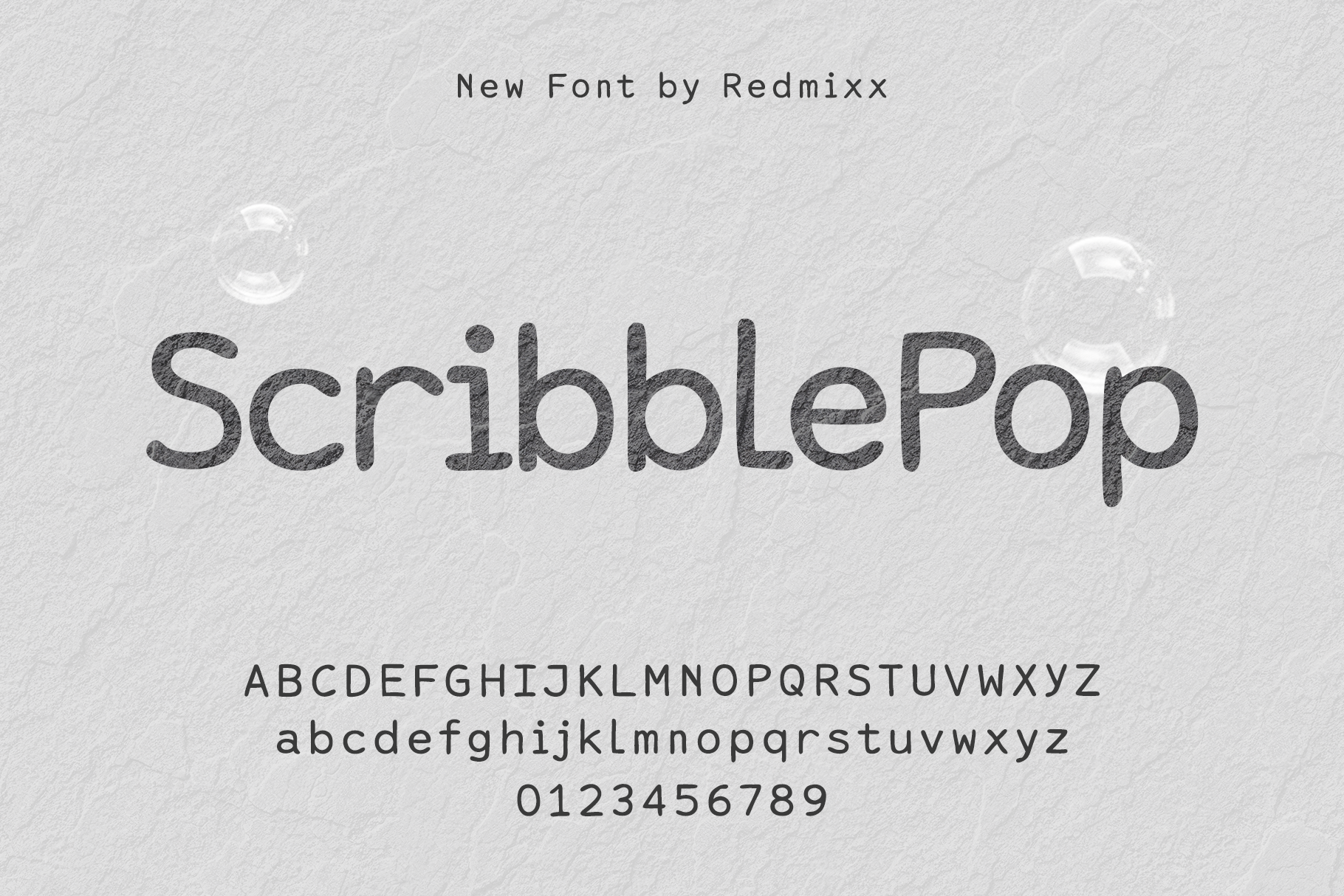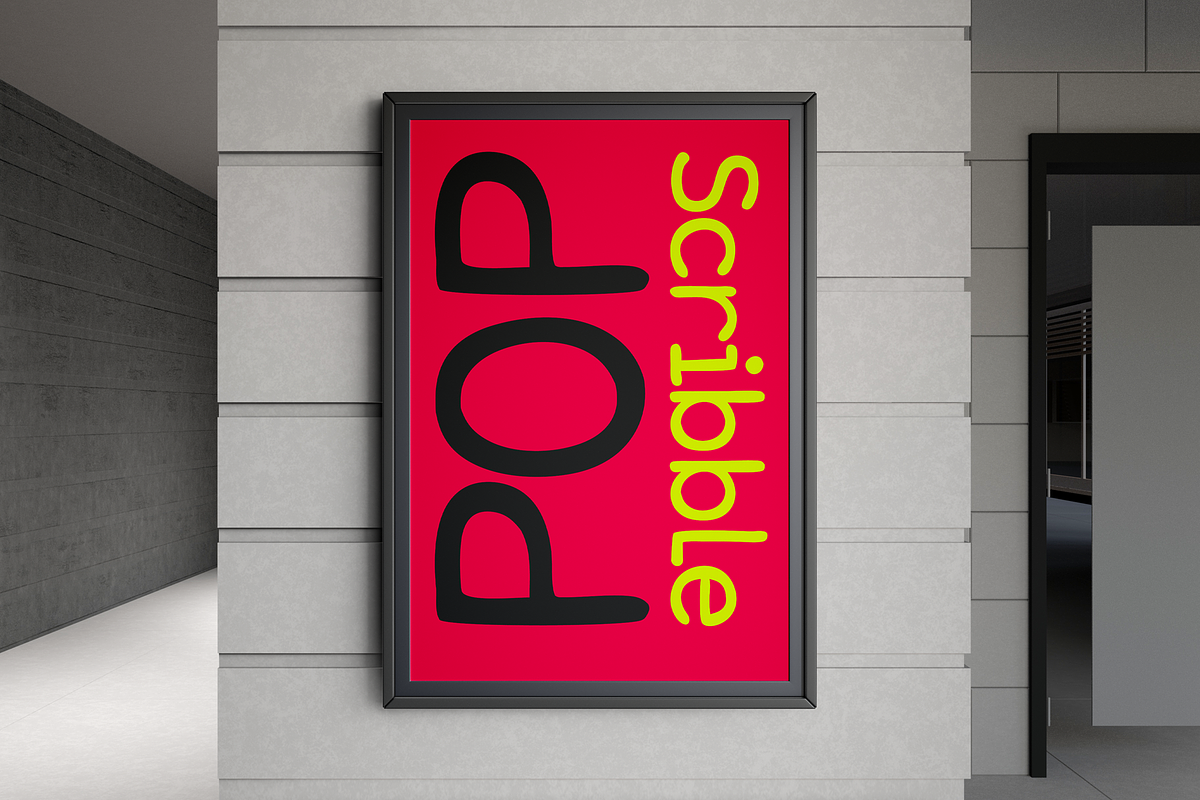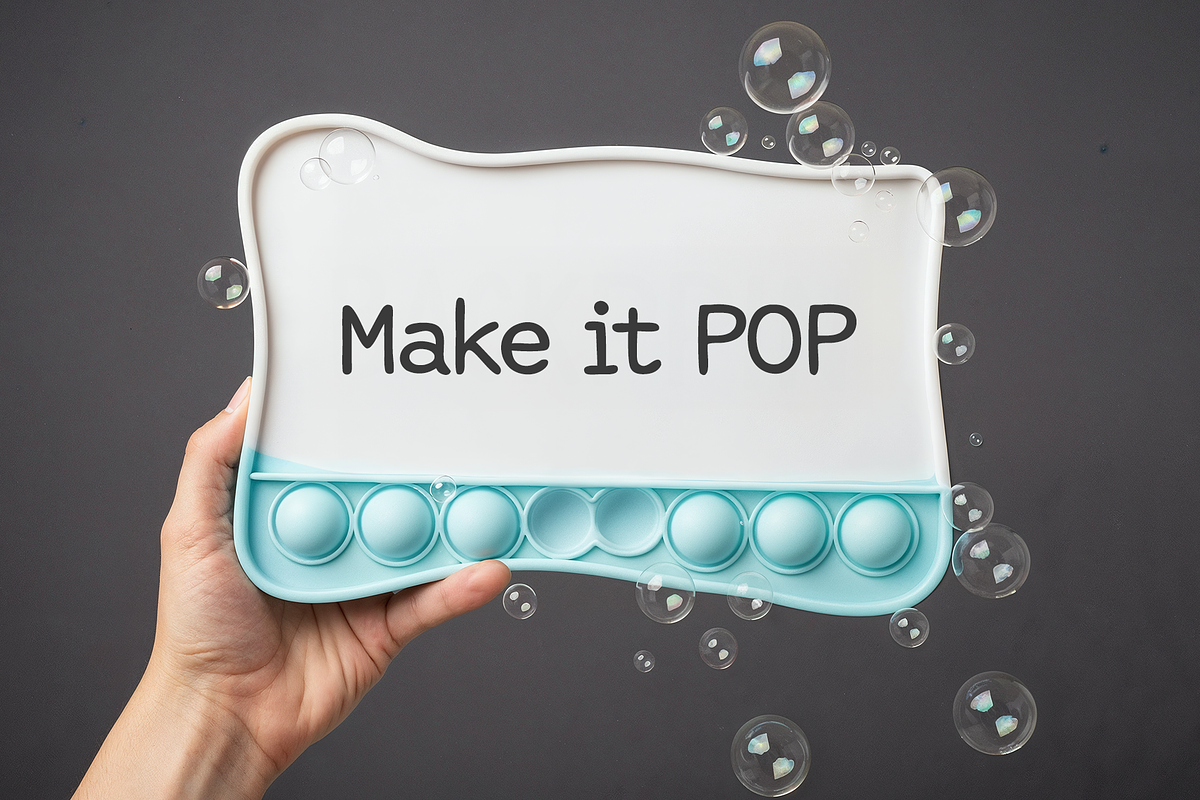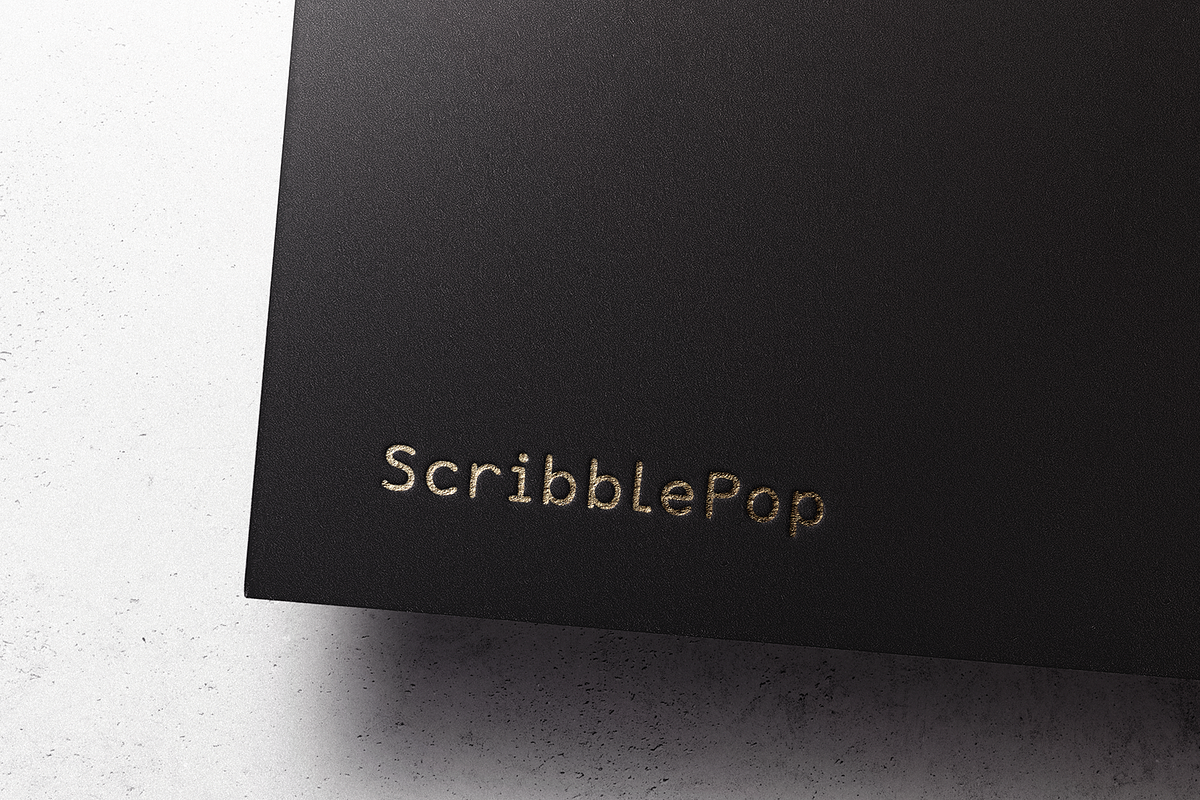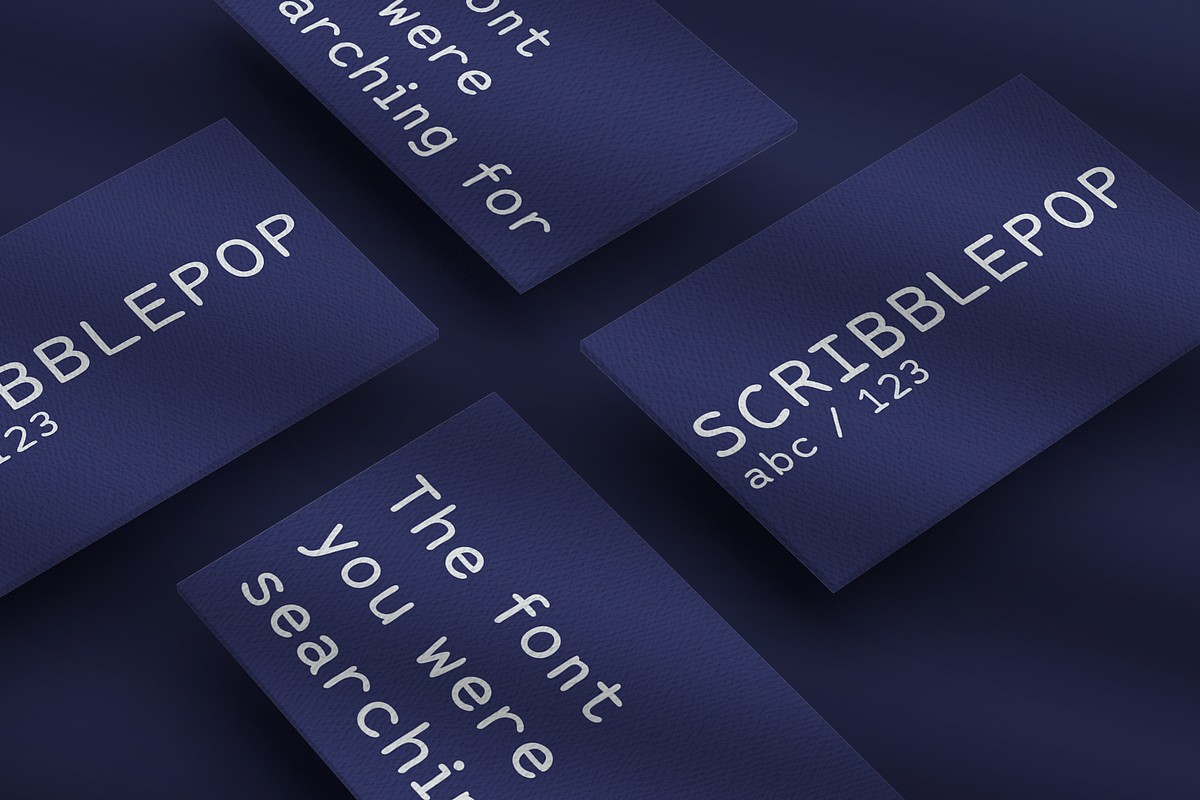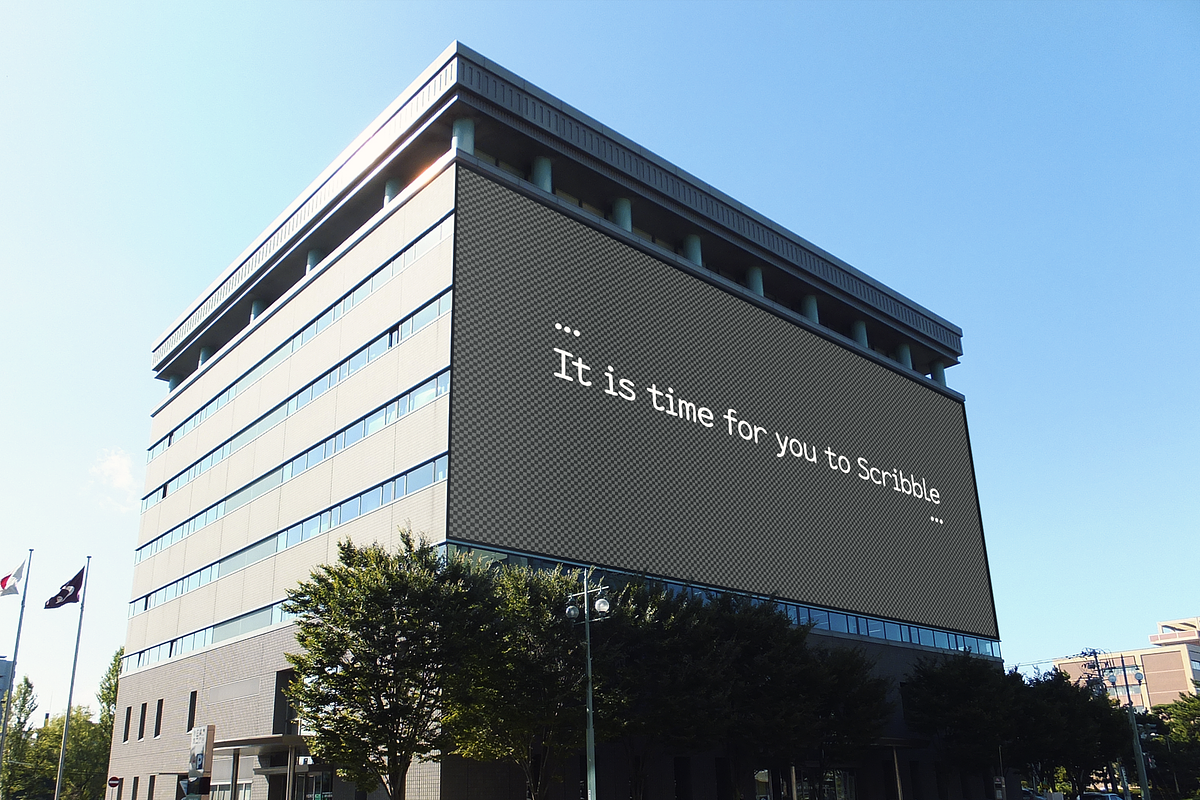
ScribblePop Font
ScribblePop – A Hand-Drawn Playful Font ScribblePop is a quirky and charming font. Designed to bring fun and friendliness to your creative work, it’s perfect for children’s books, posters, invitations, branding, packaging, and anything that needs a cheerful twist!
- Handcrafted, rounded edges
- Unique letter shapes with friendly character
- Great readability for display use
Let ScribblePop add a bit of bounce to your next design!